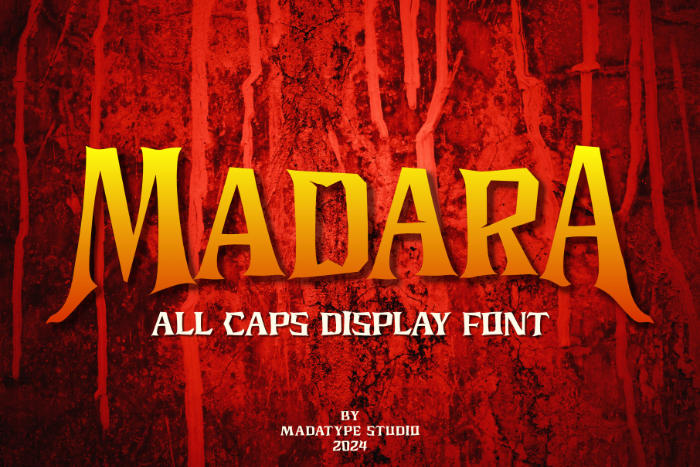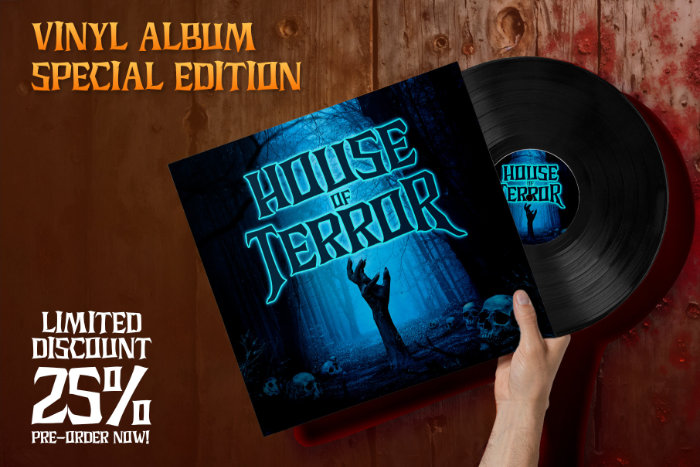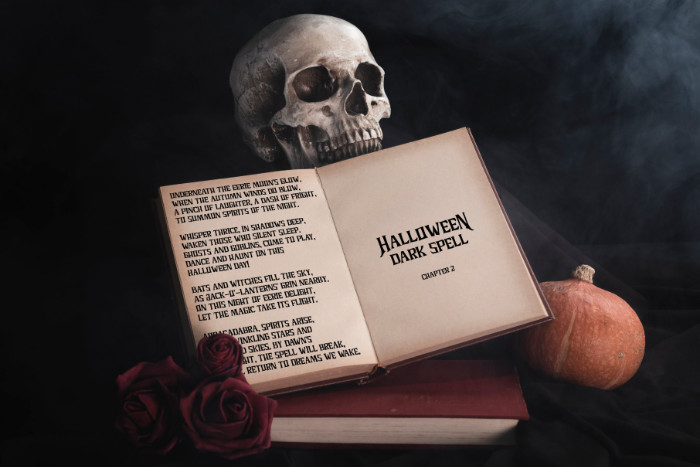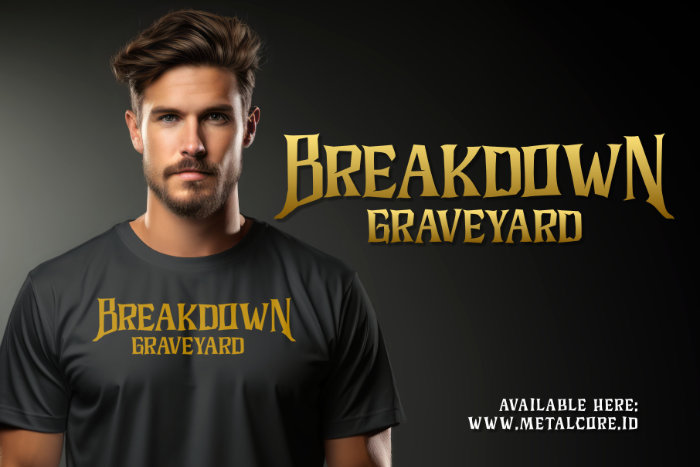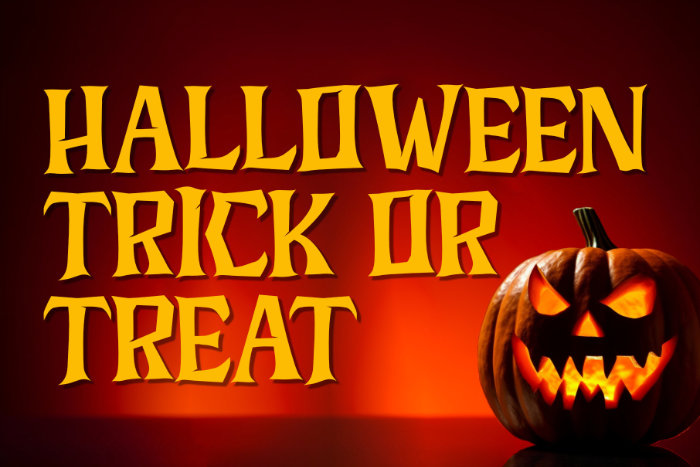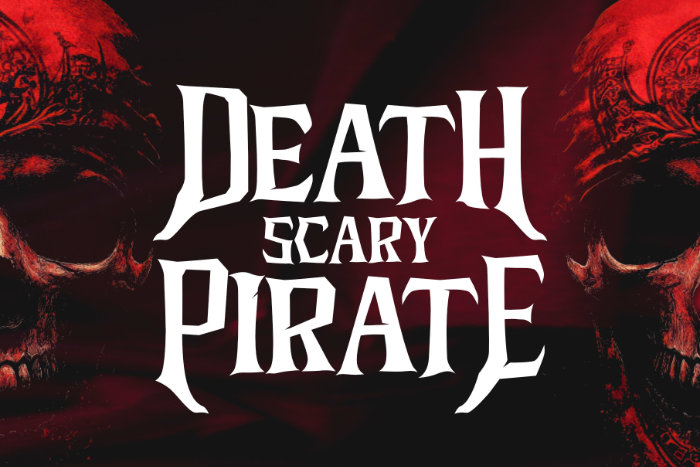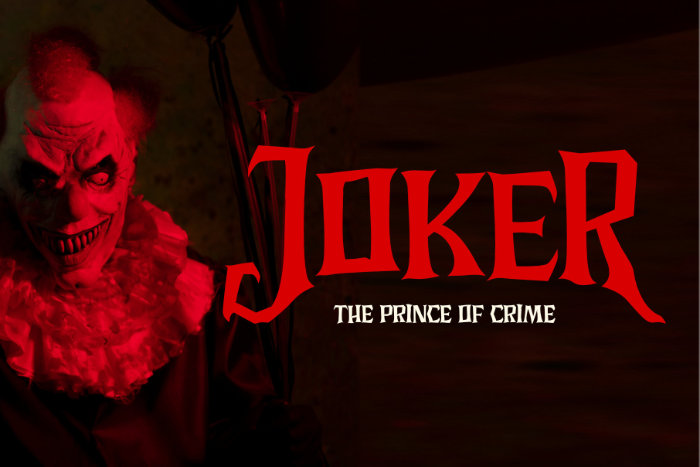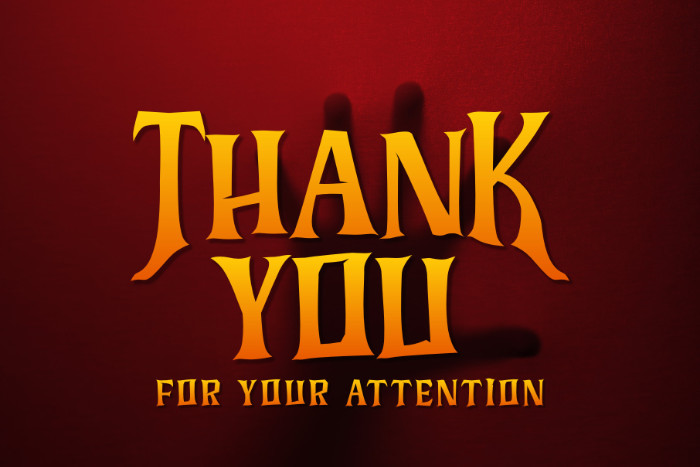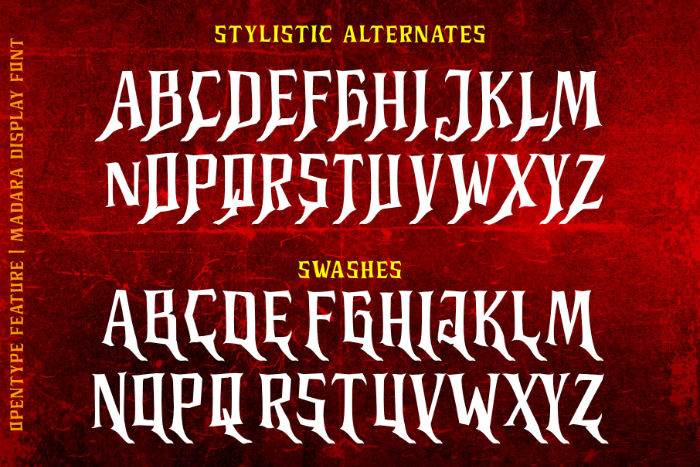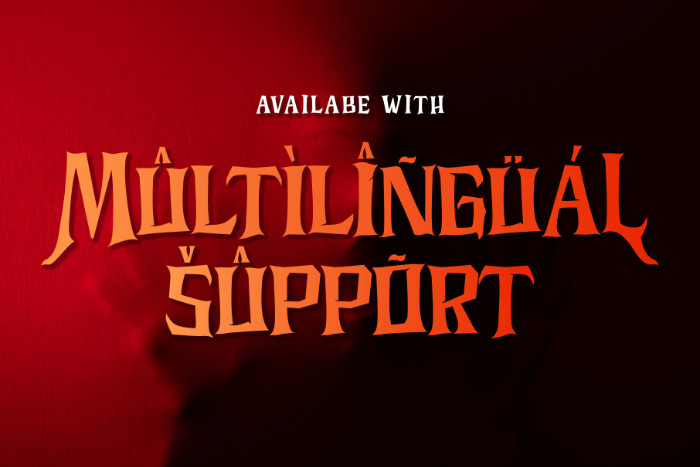
Madara is a bold, all-caps display font designed to bring intensity and darkness to your creative projects. With sharp edges, dramatic strokes, and a raw, rugged aesthetic, this font is perfect for spooky themes, horror designs, and death metal branding. It captures a sense of chaos and mystery, making it ideal for projects that demand a fierce, commanding presence.
Featuring a range of alternates, Madara provides flexibility and customization options to help designers craft unique and impactful typography. Whether you’re working on eerie posters, album covers, merchandise, or branding, Madara delivers a striking visual impact that complements gothic and heavy themes. Its aggressive character shapes and bold structure ensure legibility while maintaining an edgy and unconventional feel.
Madara thrives in high-contrast environments, enhancing the intensity of any design with its powerful letterforms. The font embodies rebellion, darkness, and raw energy, making it the ultimate choice for horror films, underground music scenes, and alternative fashion labels. With its extensive alternates, designers can create fluid, dynamic compositions that enhance the mystique and drama of their work.
Madara is more than just a font—it’s a statement. Elevate your projects with its haunting presence and unyielding strength.